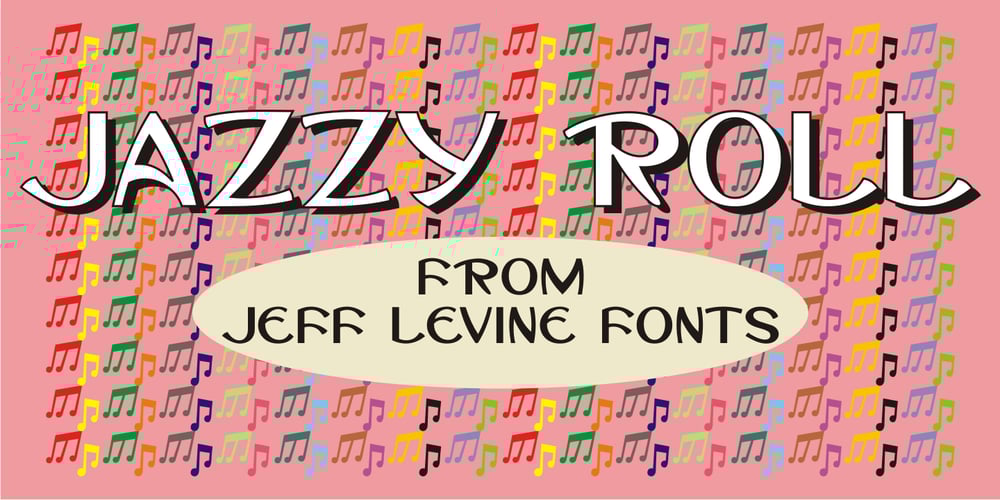
Jazzy Roll JNL
Jazzy Roll JNL font
Jazzy Roll JNL Font Family was designed by Jeff Levine and published by Jeff Levine. Jazzy Roll JNL contains 1 styles and family package options. The 1915 sheet music for the tune “Dancing the Jelly Roll Song” by Nat Vincent and Herman Paley featured the title hand-lettered in a sans serif design strongly influenced by the Art Nouveau movement of the early 20th Century. This formed the basis for Jazzy Roll JNL.